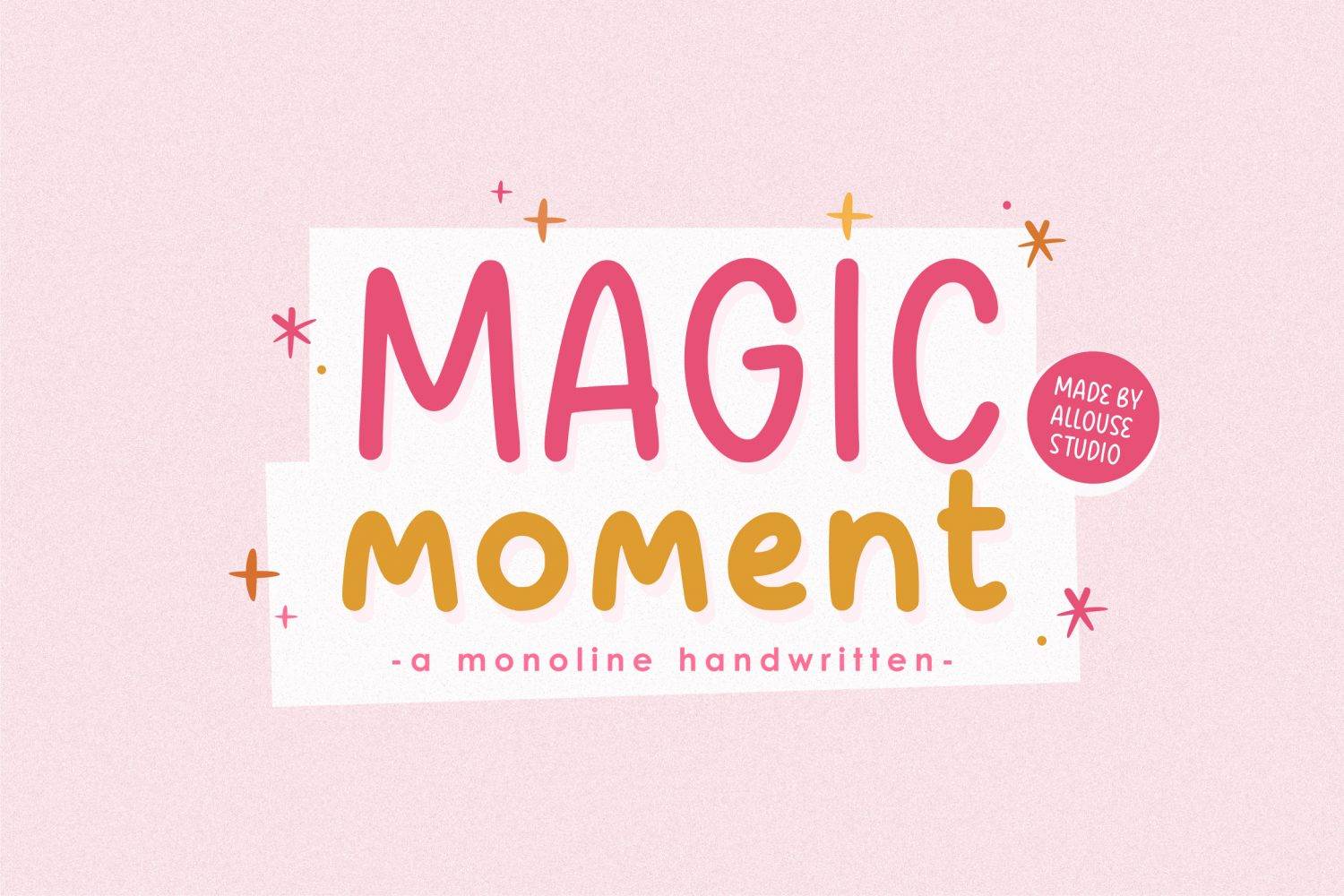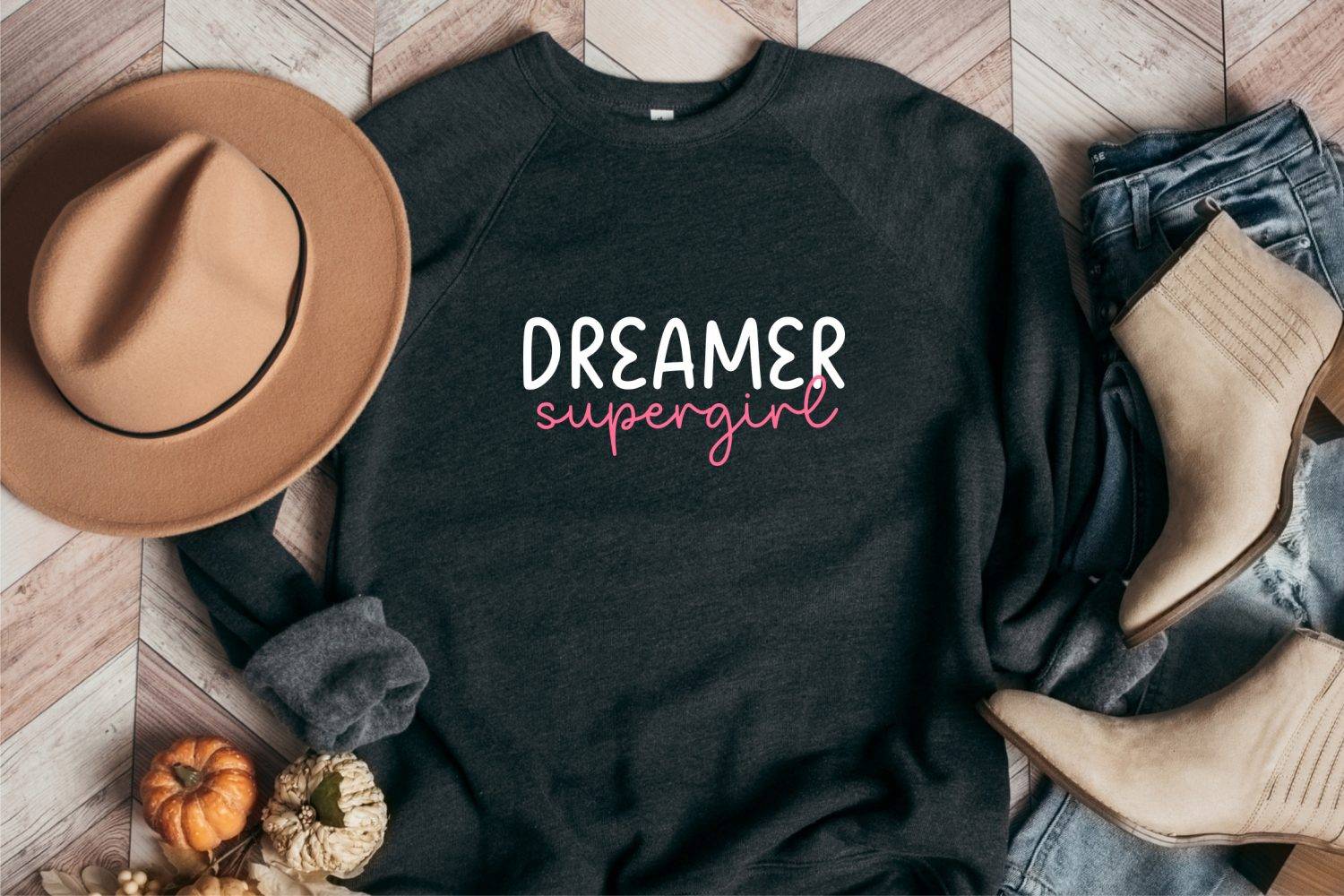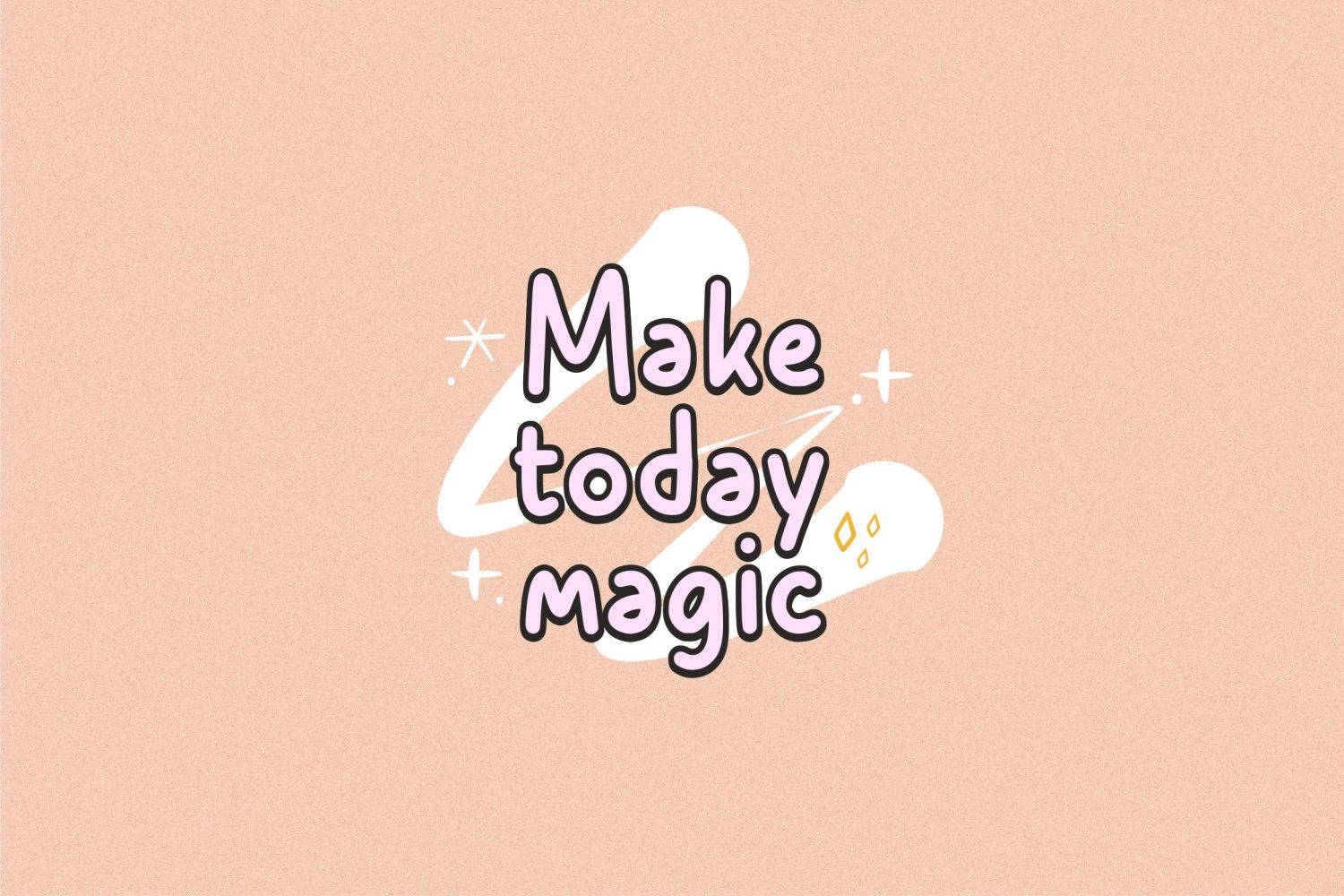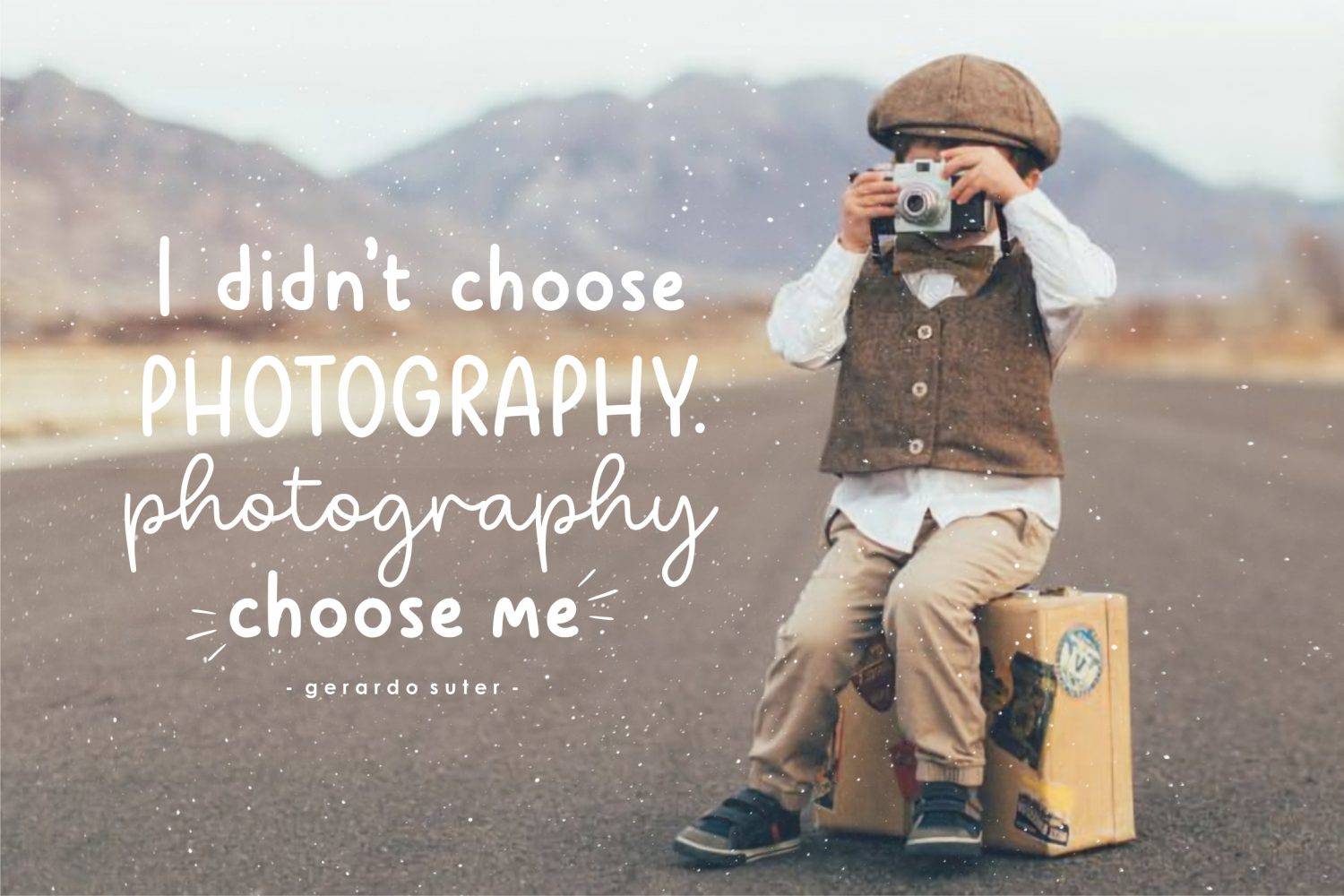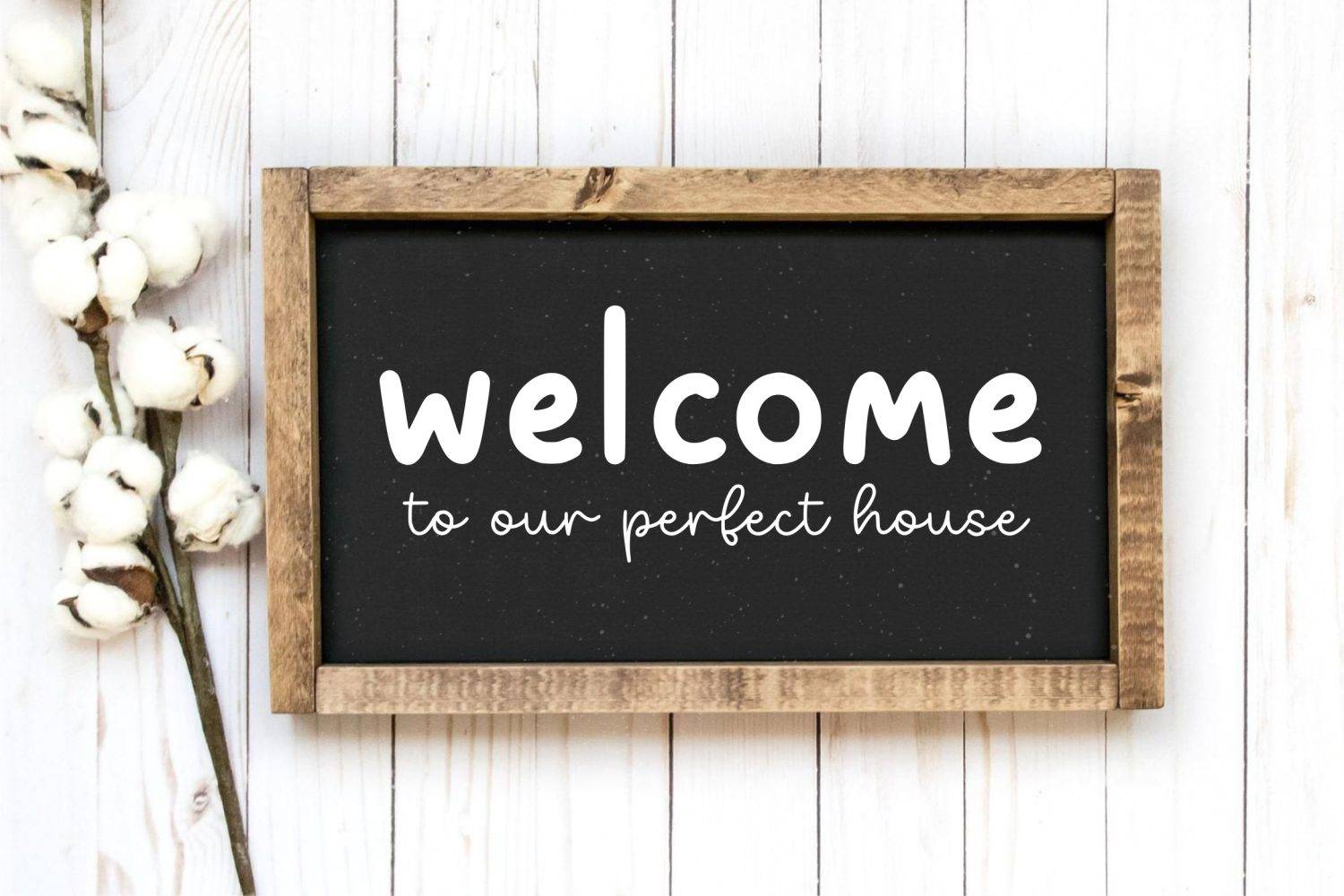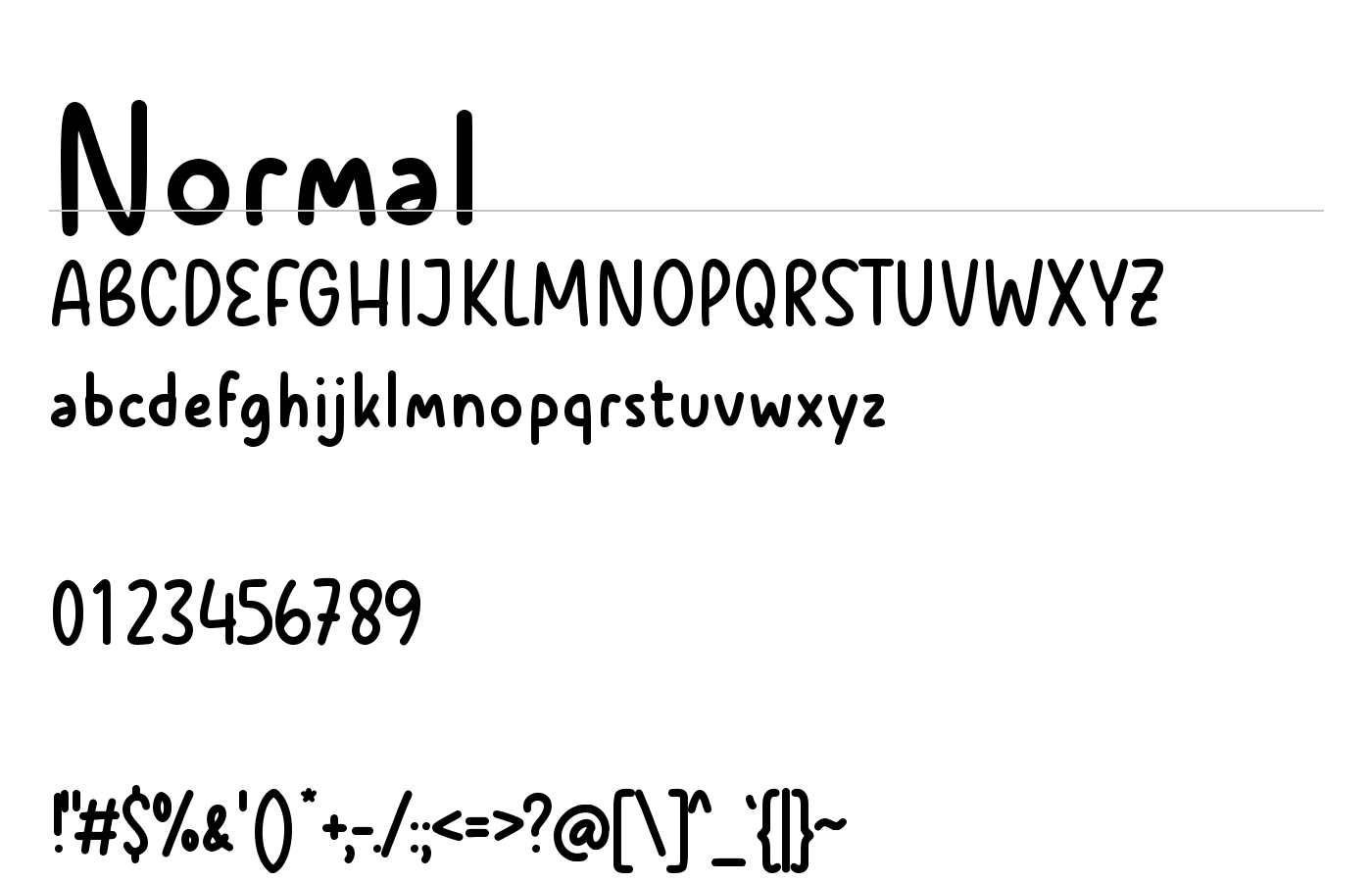
Magic Moment is a playful, handwritten sans serif font with rounded edges and a casual feel, making it perfect for friendly, approachable designs. Its clean, simple letterforms with consistent stroke weight and tall x-height give it great readability, ideal for branding, invitations, and informal communications where warmth and fun are key. This font works well in both headlines and short texts, adding a personal and lively touch without sacrificing clarity.
Magic Moment Font
About Magic Moment Font